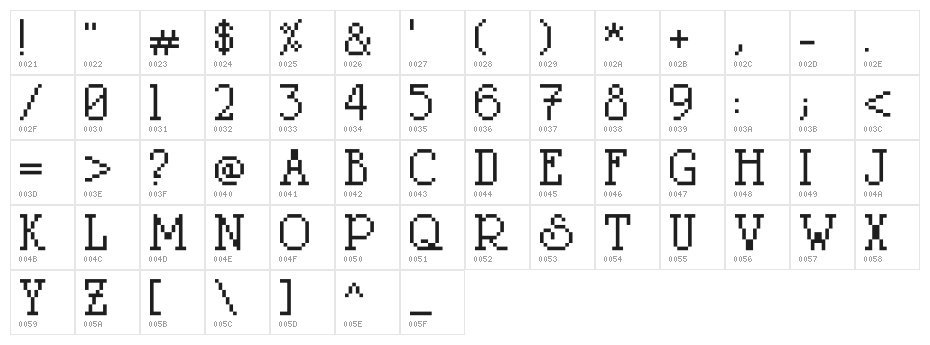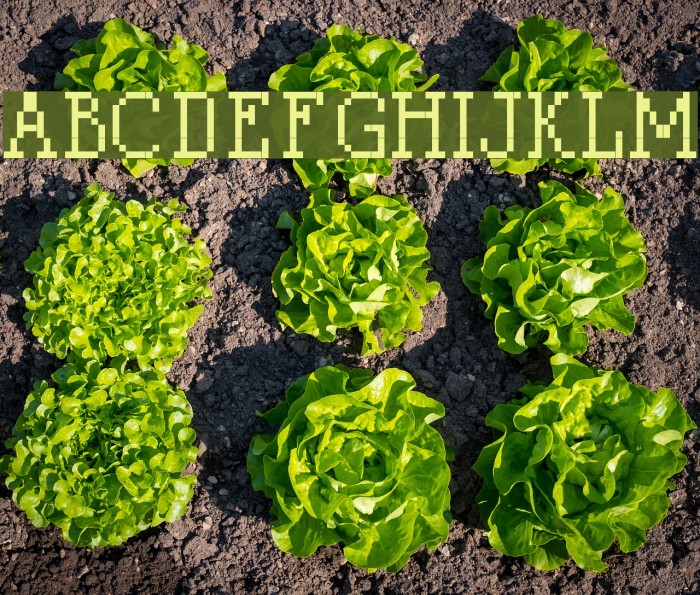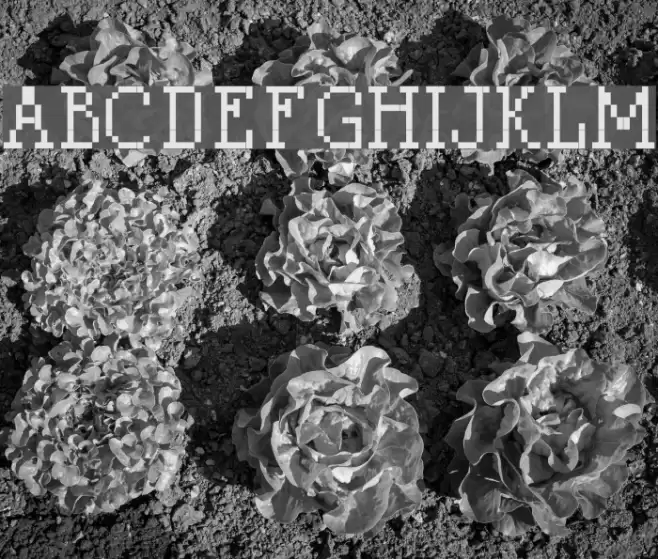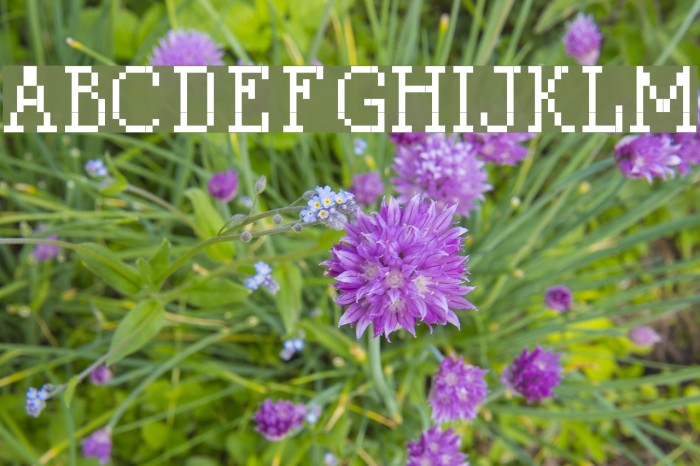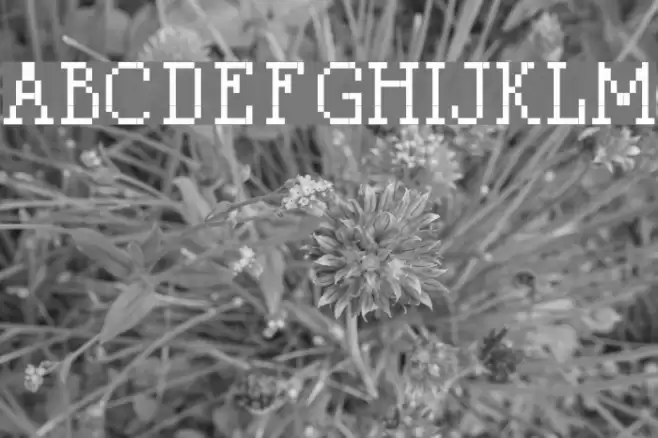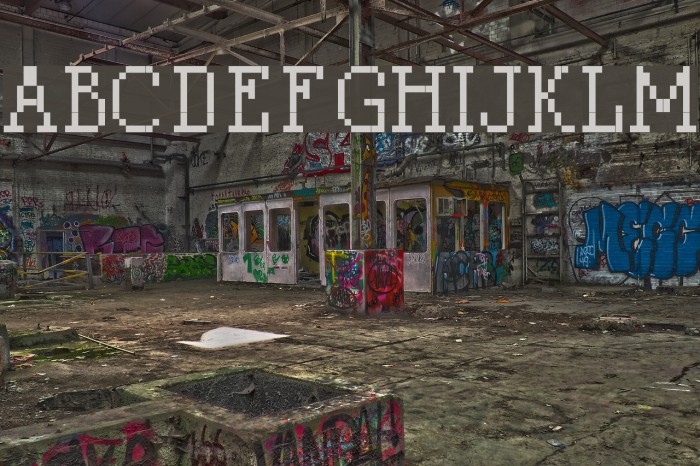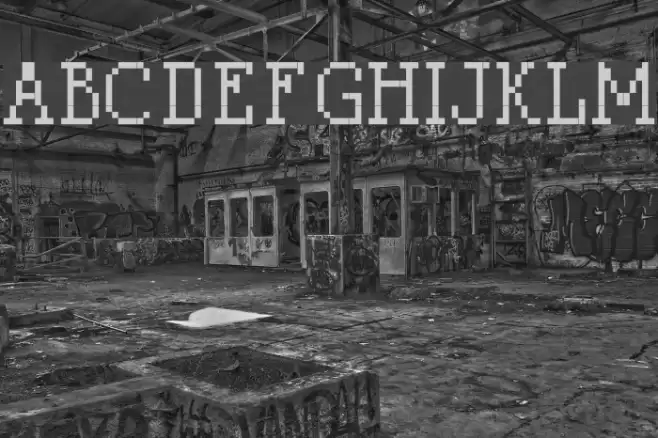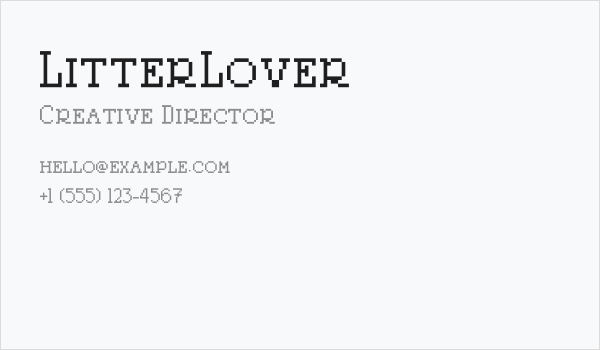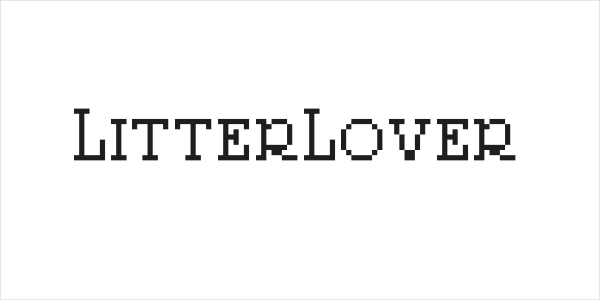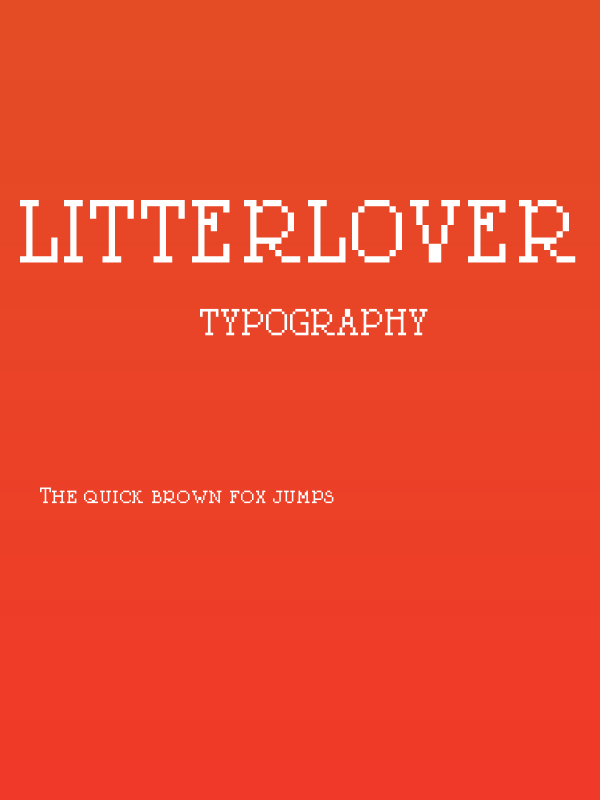
LitterLover Font
LitterLover Description
This font features a pixelated, blocky design reminiscent of early digital displays and retro video games. The characters are constructed with a grid-like pattern, giving them a distinct, nostalgic appearance. Each letter and number is composed of small square blocks, creating a uniform and consistent look across the set. The uppercase and lowercase letters maintain a similar style, with slight variations in height and width to distinguish them. The numerals and special characters follow the same pixelated theme, ensuring a cohesive aesthetic. This font's unique style makes it ideal for projects that aim to evoke a sense of nostalgia or a retro digital vibe.
| Proposed Projects | Ideal for retro video game graphics, digital art projects, nostalgic branding, and tech-themed designs. |